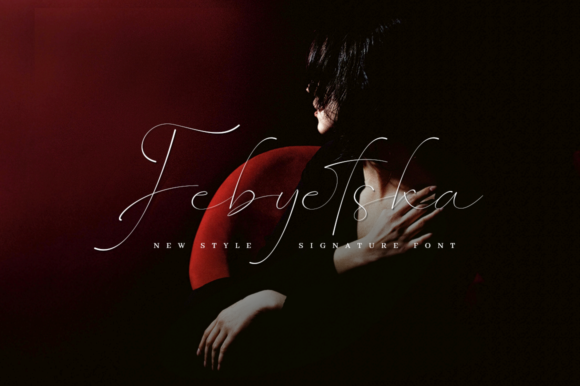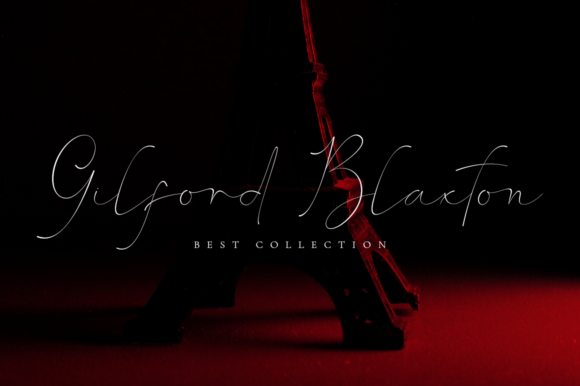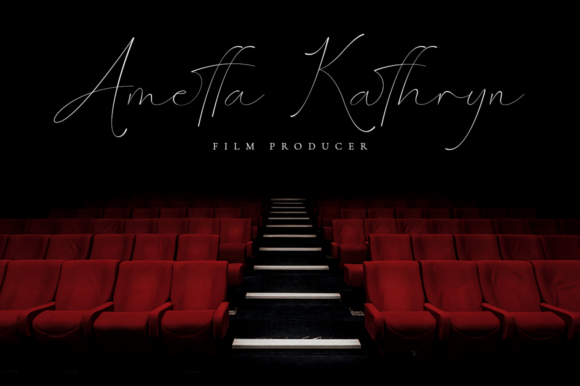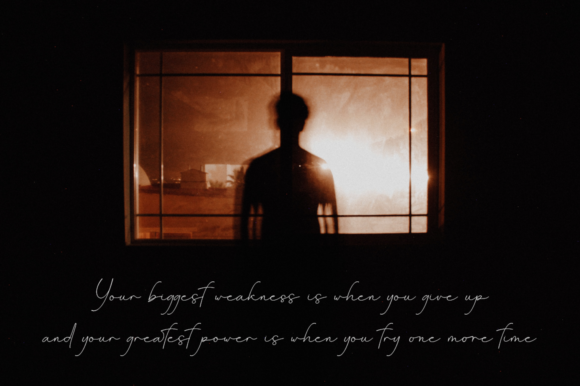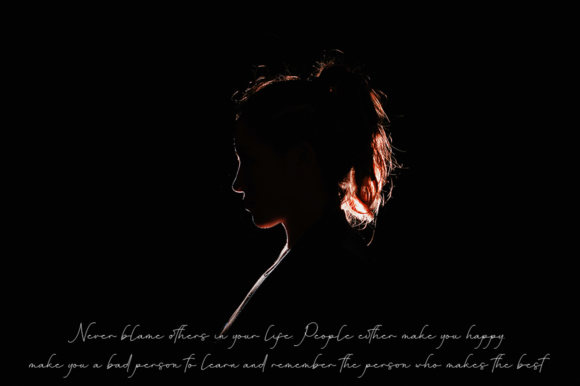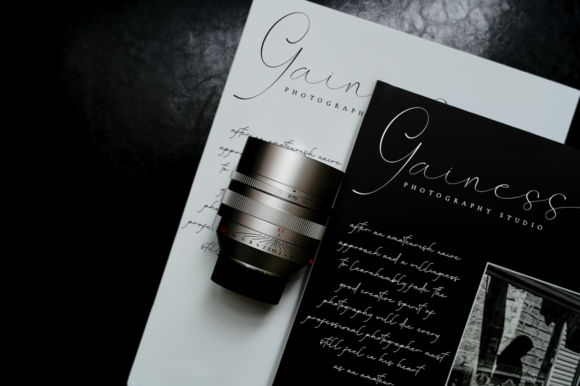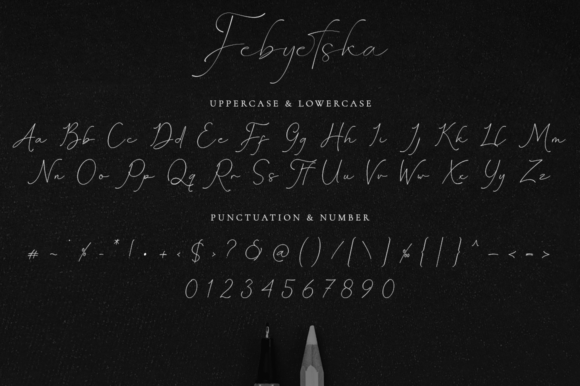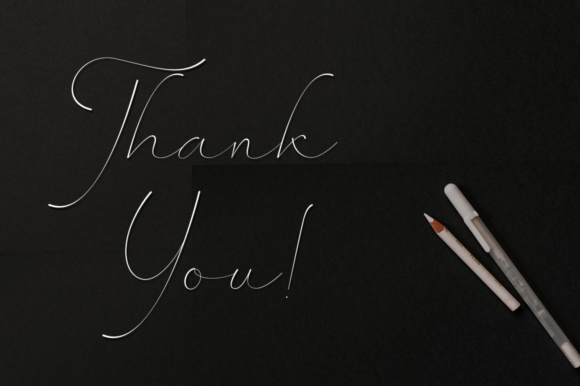
Febyetska Font
About Febyetska Font
Febyetska is an elegant script font. It maintains its classy calligraphic influences while feeling contemporary and fresh. This versatility will appeal to a wide range of crafty ideas, from letterheads and titles, to stationery.